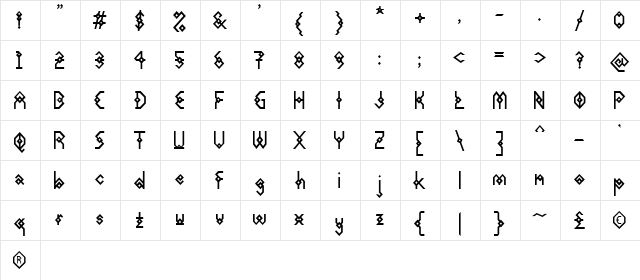
Cabella Condensed Regular Font Preview
Cabella Condensed Regular
Cabella Condensed Regular Font Details
| Foundry | Gilang Sabunge |
| Designer | Gilang Sabunge |
Design Context for Cabella Typeface
Cabella is a composed and adaptable typeface that performs quietly and consistently across a wide range of design contexts. The condensed width makes it efficient for tight spaces without sacrificing legibility.